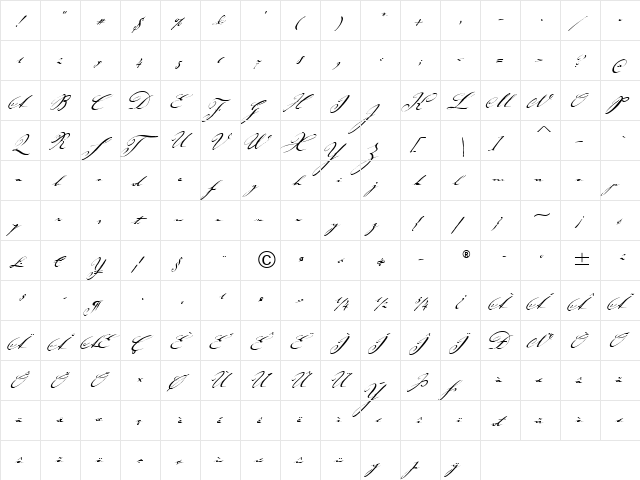
Johann Sparkling ITC Light Italic
| Foundry | International Typeface Corporation |
Design Context for Johann Sparkling ITC Typeface
Johann Sparkling ITC is a composed and adaptable typeface that performs quietly and consistently across a wide range of design contexts. The dynamic lean of this cut emphasises speed and emphasis in any layout. Its slender proportions lend an understated elegance to any composition.